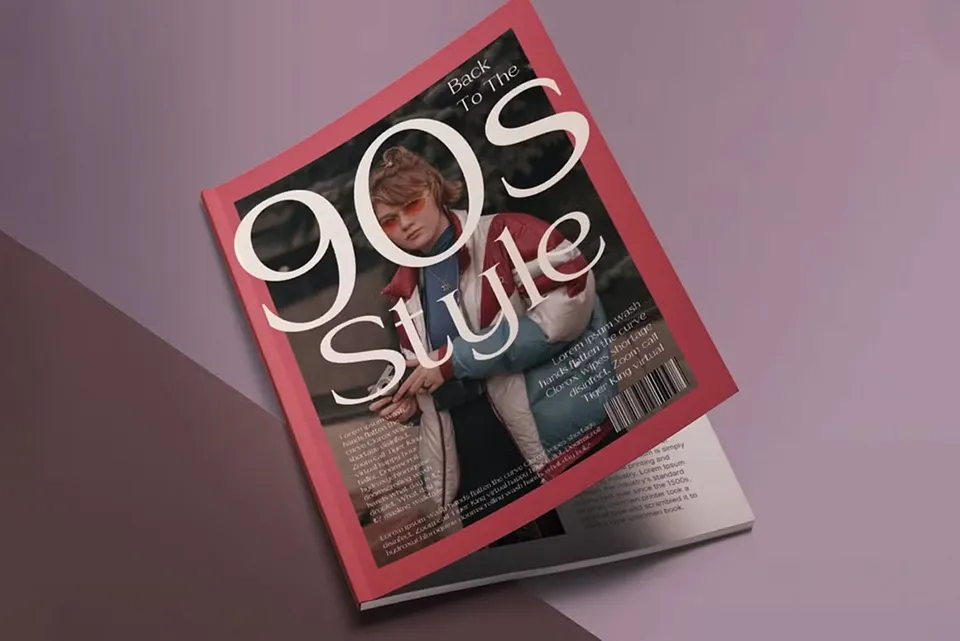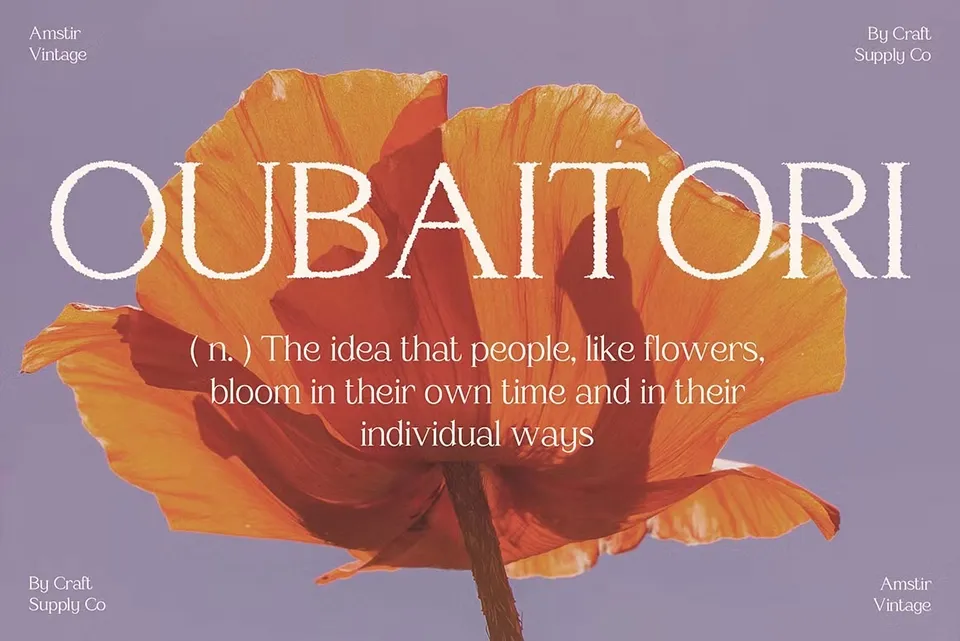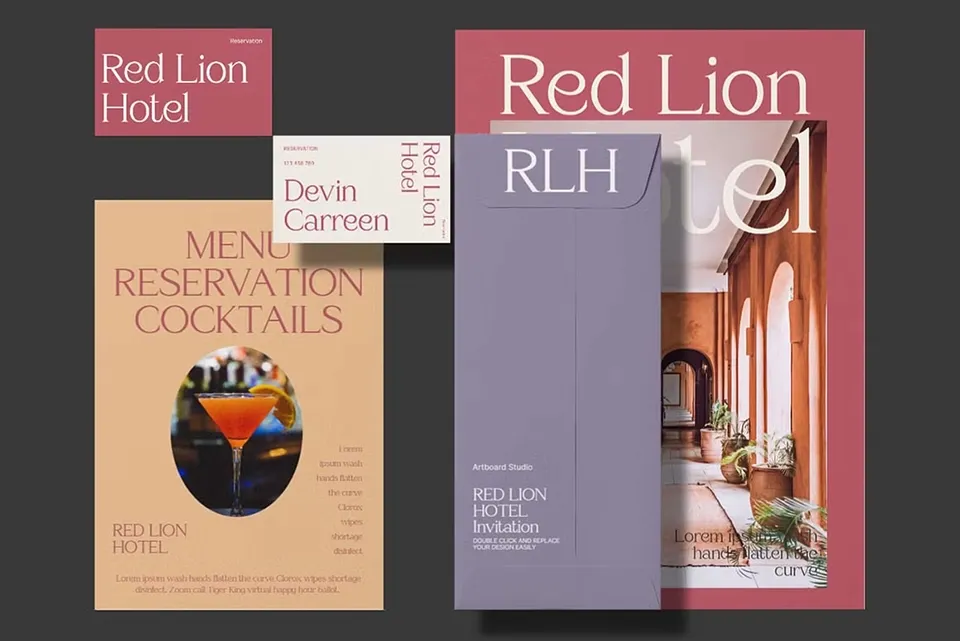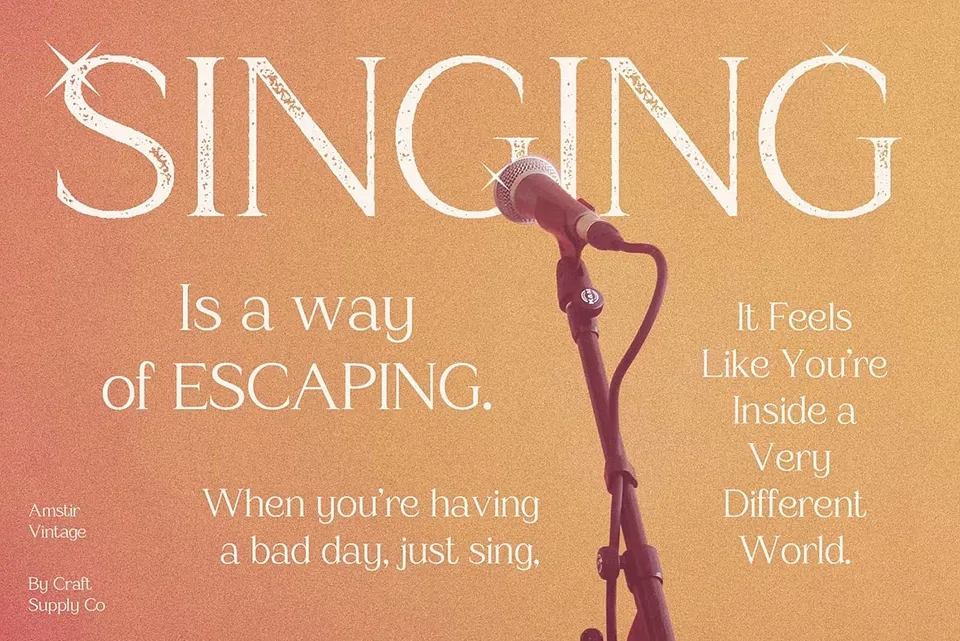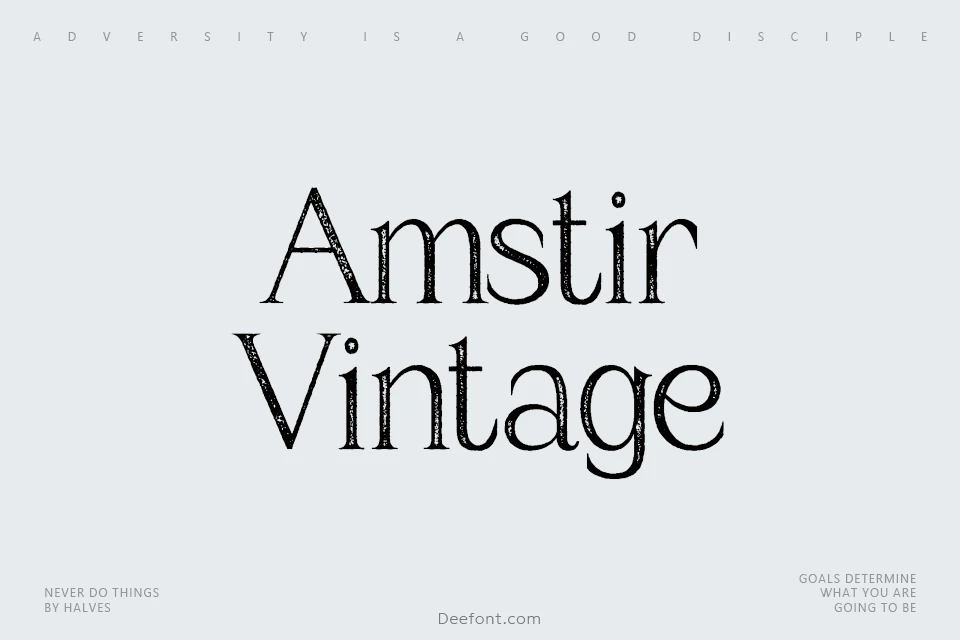
Amstir Vintage Font
Amstir Vintage is a refined serif typeface that embodies timeless elegance and classic charm. Designed with smooth curves and balanced proportions, it evokes a vintage aesthetic while maintaining a modern versatility. Perfect for branding, editorial design, packaging, and invitations, this font adds sophistication to any project. Its clean lines and subtle details make it ideal for conveying professionalism and style. Whether used for headlines or body text, Amstir Vintage delivers a harmonious blend of tradition and contemporary appeal. This typeface is a must-have for designers seeking to create visually stunning work with a touch of vintage inspiration.